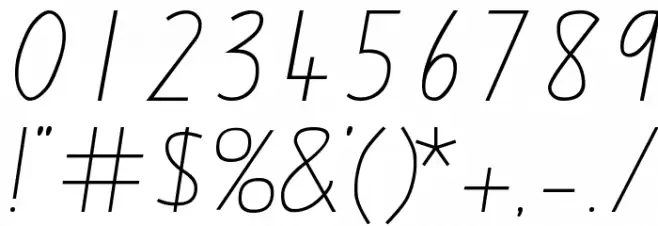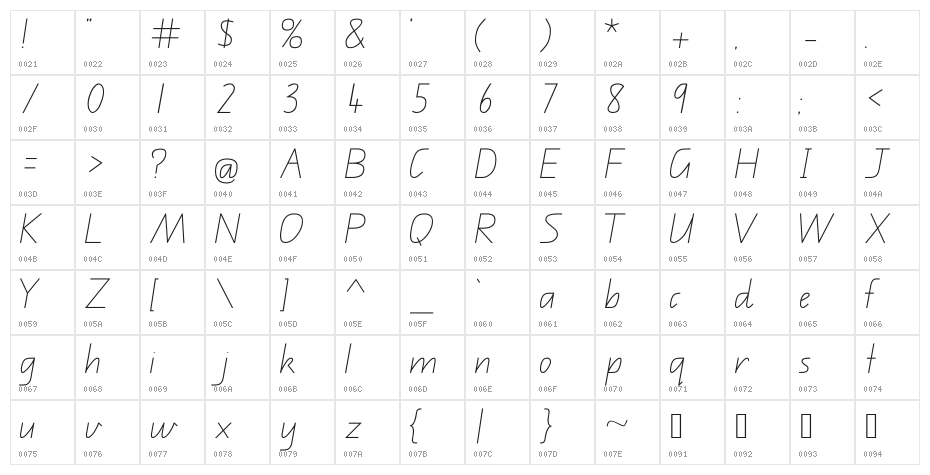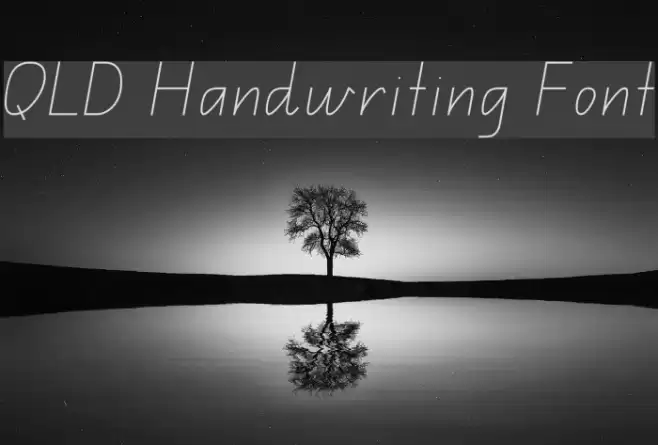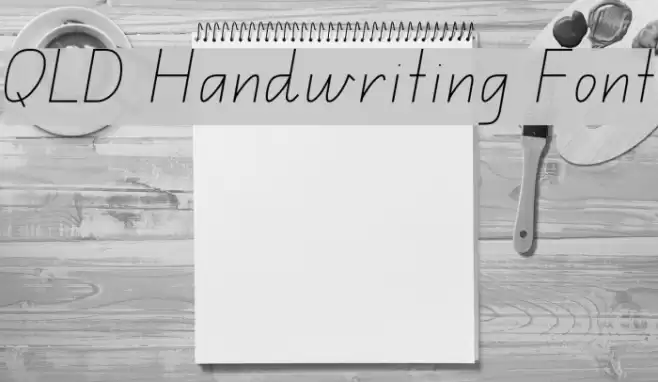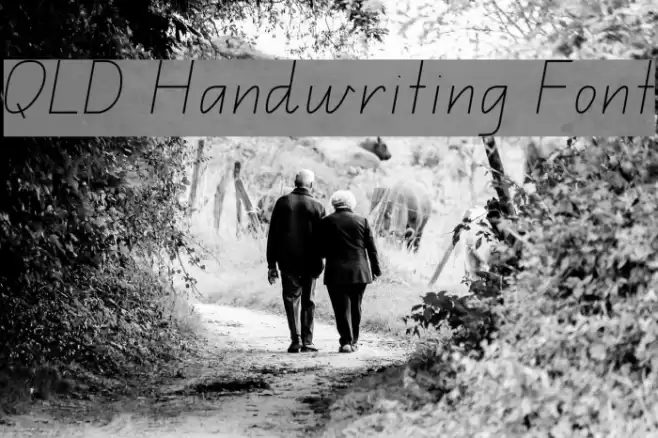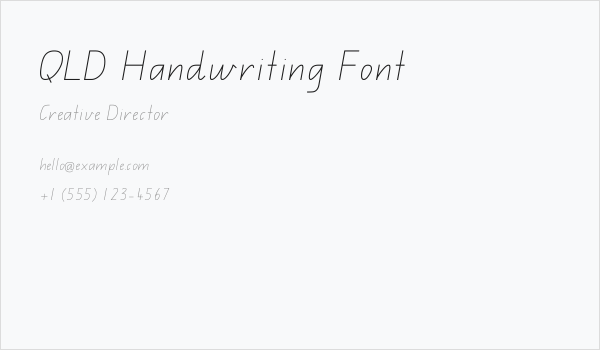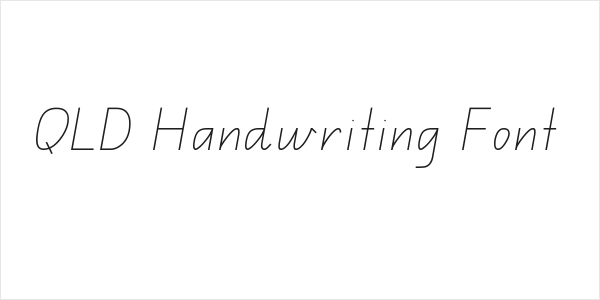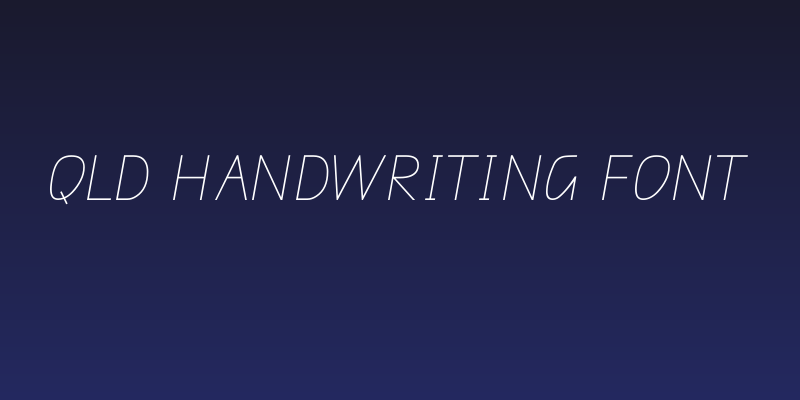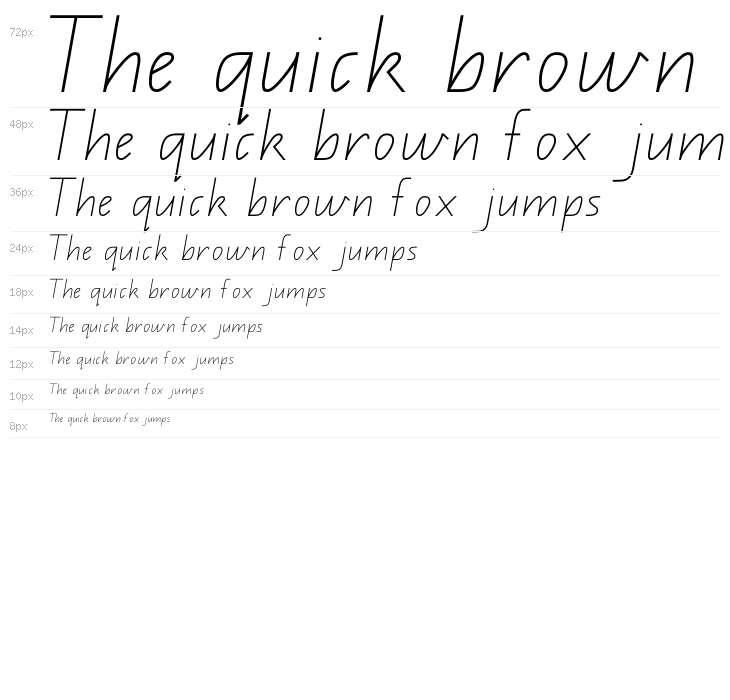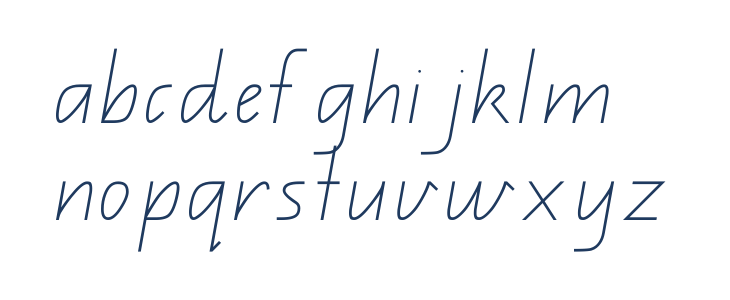
QLD Handwriting Font Font
QLD Handwriting Font Description
This font features a clean and legible handwriting style, characterized by its smooth and flowing strokes. The letters are slightly slanted, giving it a casual yet elegant appearance. It maintains a consistent stroke width throughout, which contributes to its readability. The uppercase letters are tall and narrow, while the lowercase letters are more rounded and open. Numbers and special characters are designed with the same fluidity, ensuring a cohesive look across all elements. This font is ideal for educational materials, personal notes, and any project that requires a handwritten touch.
| Use Case | Educational materials, personal notes |
| Proposed Projects | Ideal for educational materials, personal notes, and projects requiring a handwritten touch. |